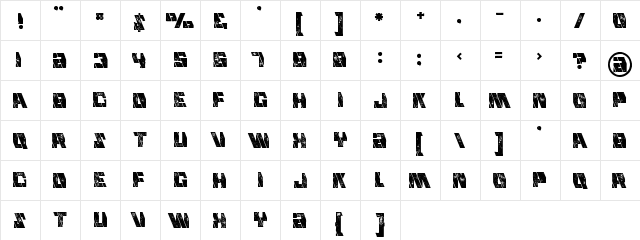
mecha grunge Regular
Design Context for mecha grunge Typeface
mecha grunge trades polish for personality, using distressed and eroded forms to bring grit and attitude to creative work.
Suited to punk-influenced zines, underground music branding, streetwear, and raw, anti-corporate design.
Pro Tip: Pair mecha grunge with intentionally raw or lo-fi design elements. Fighting against it with overly polished surroundings will undermine its personality.